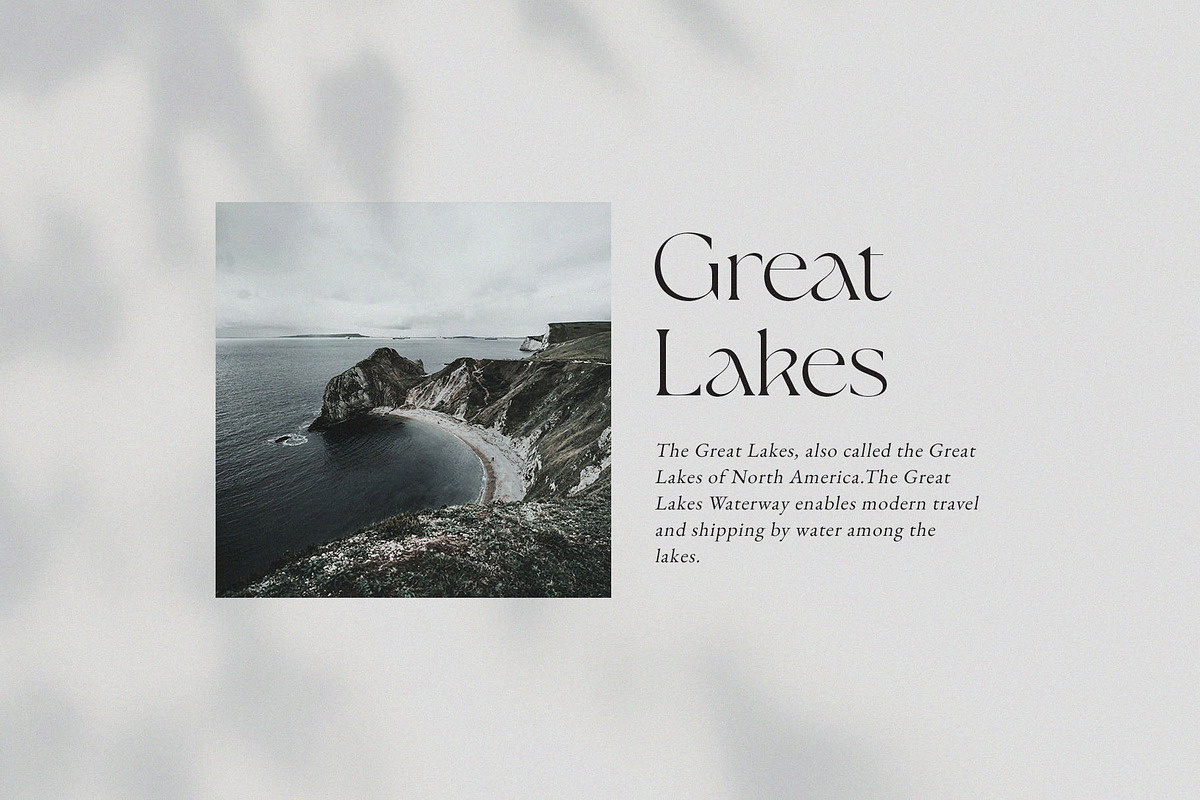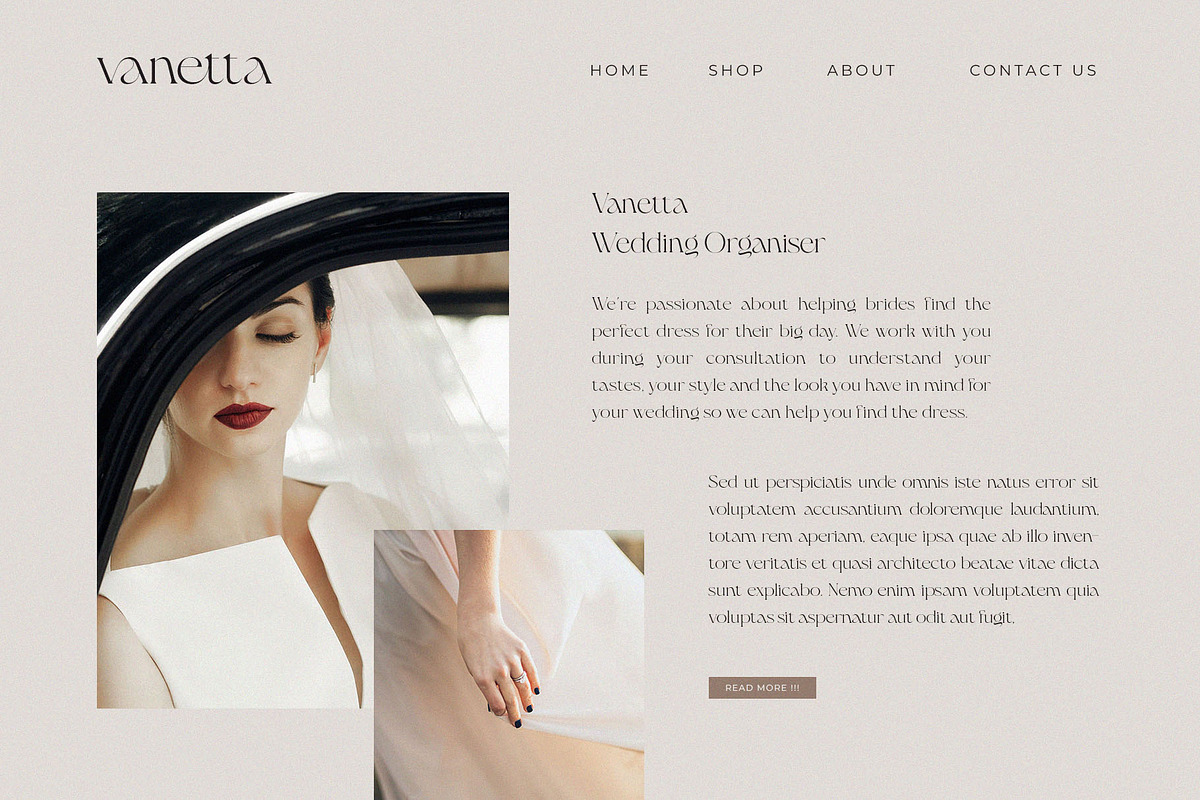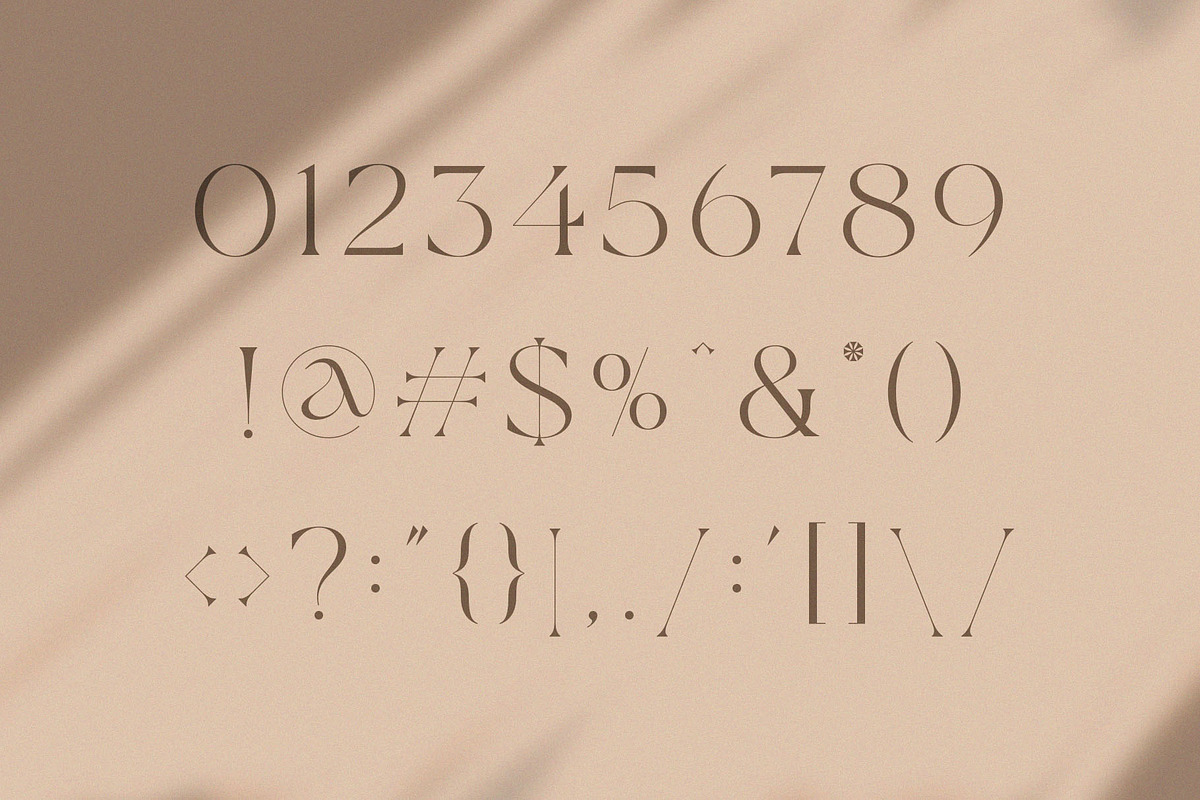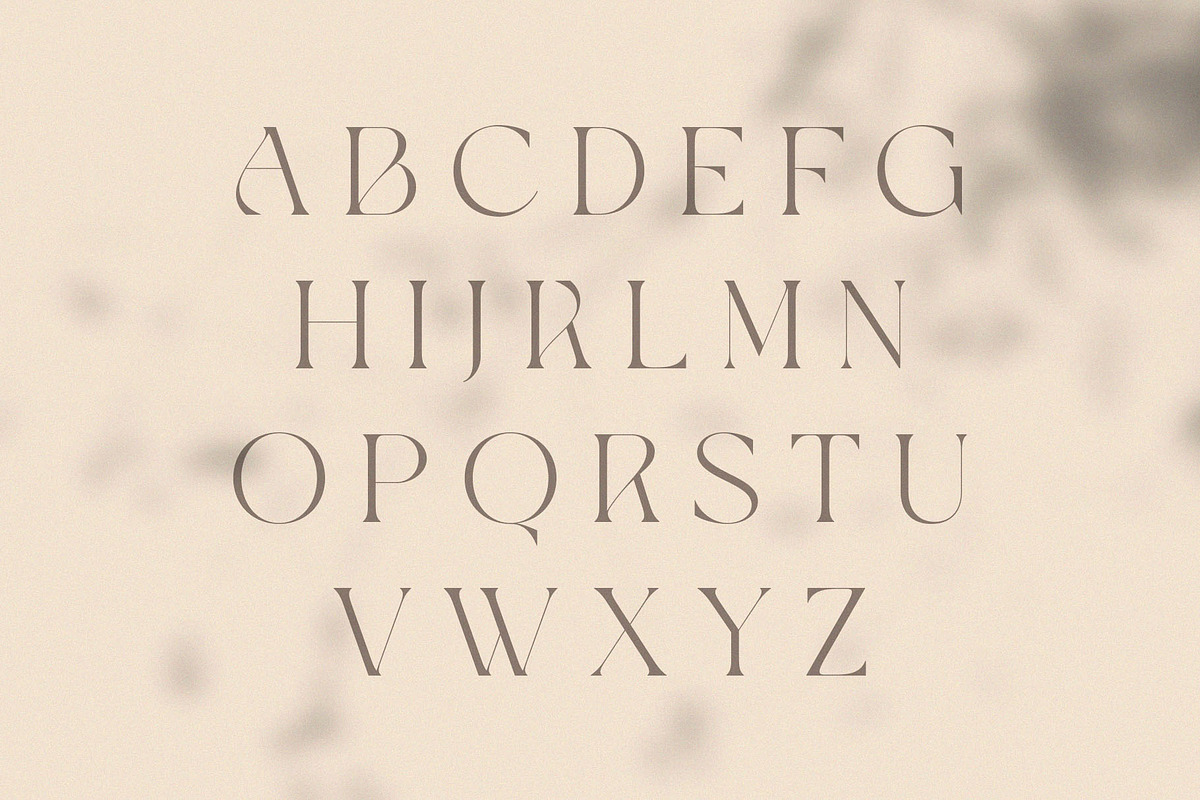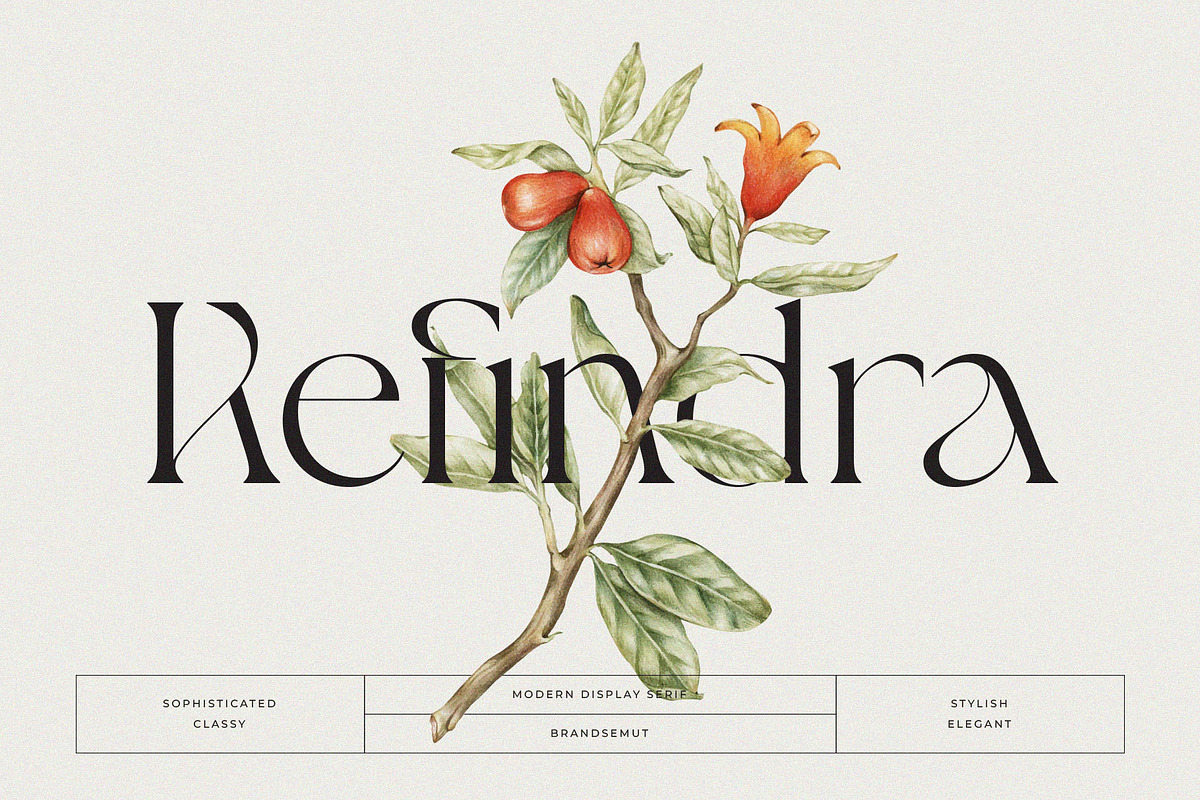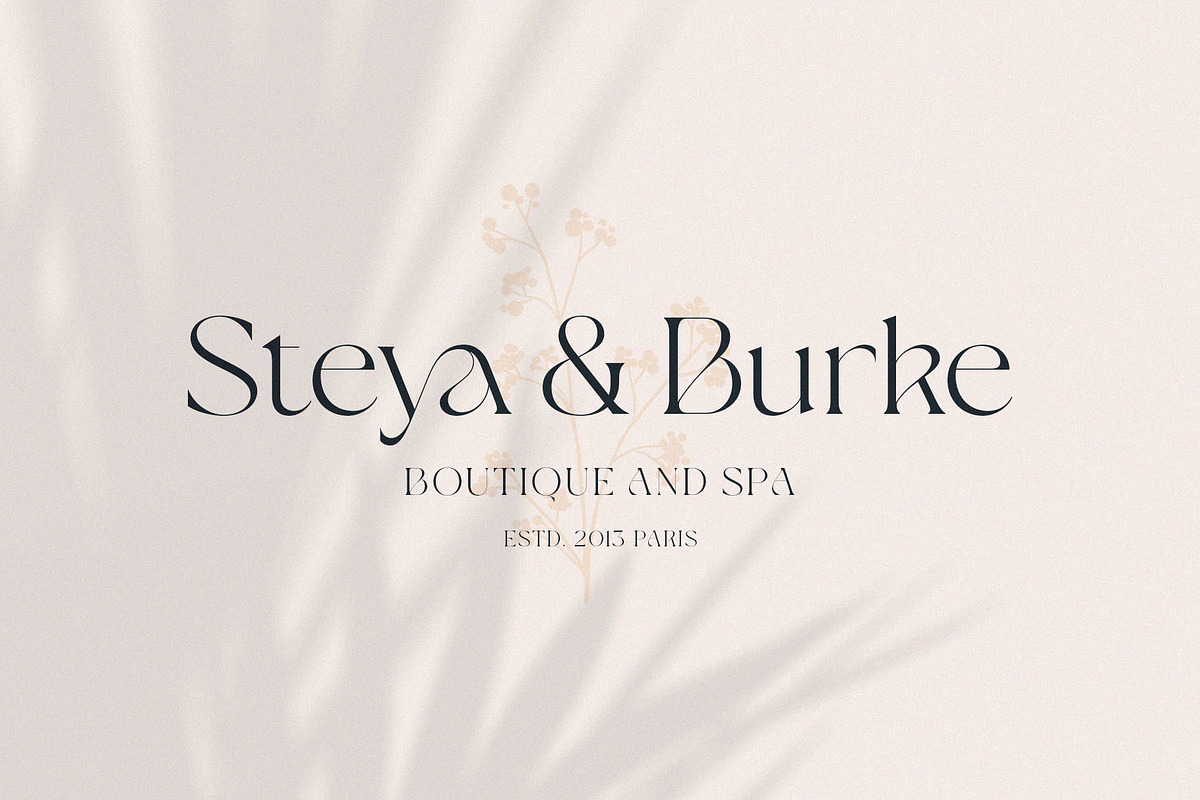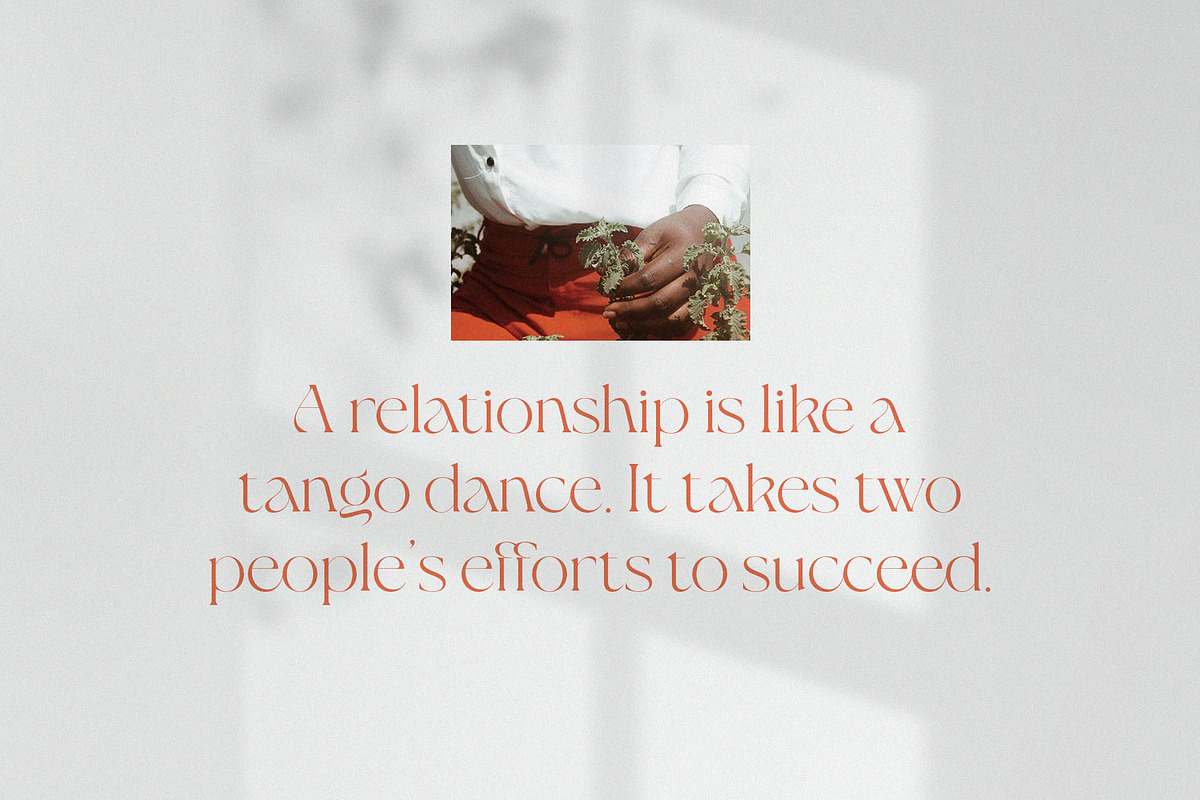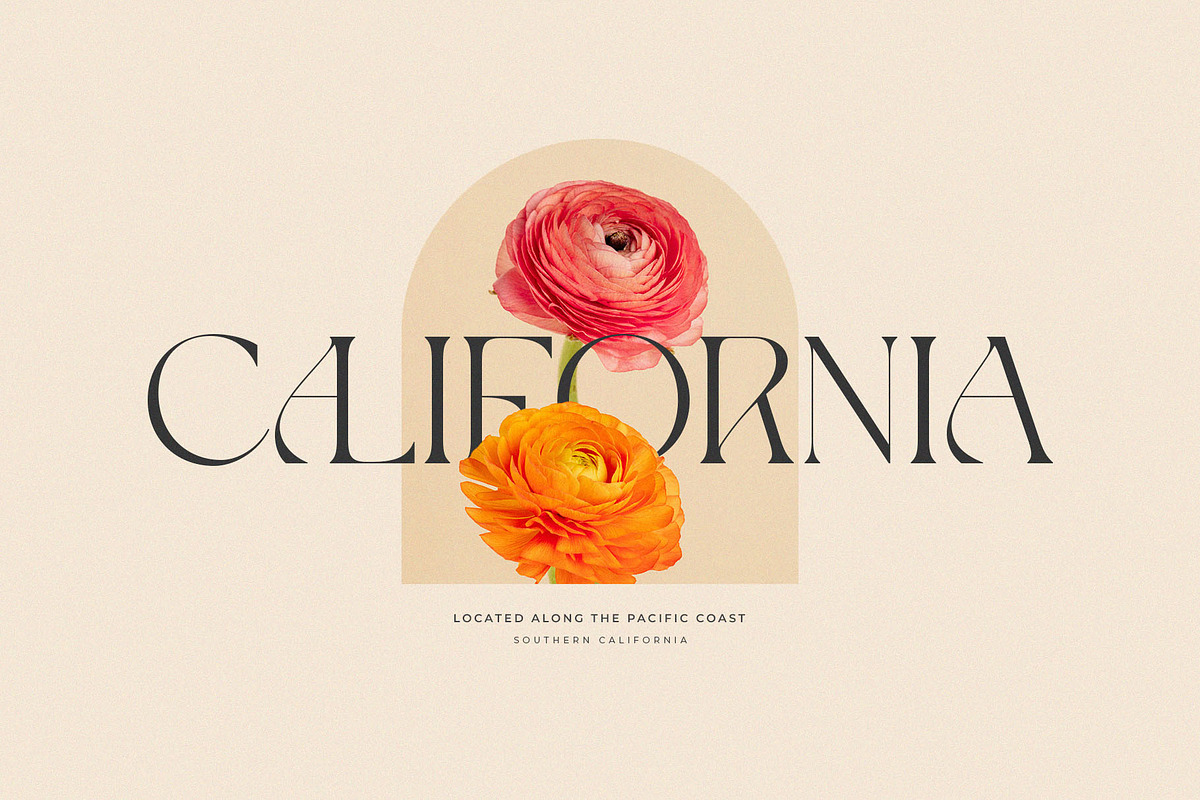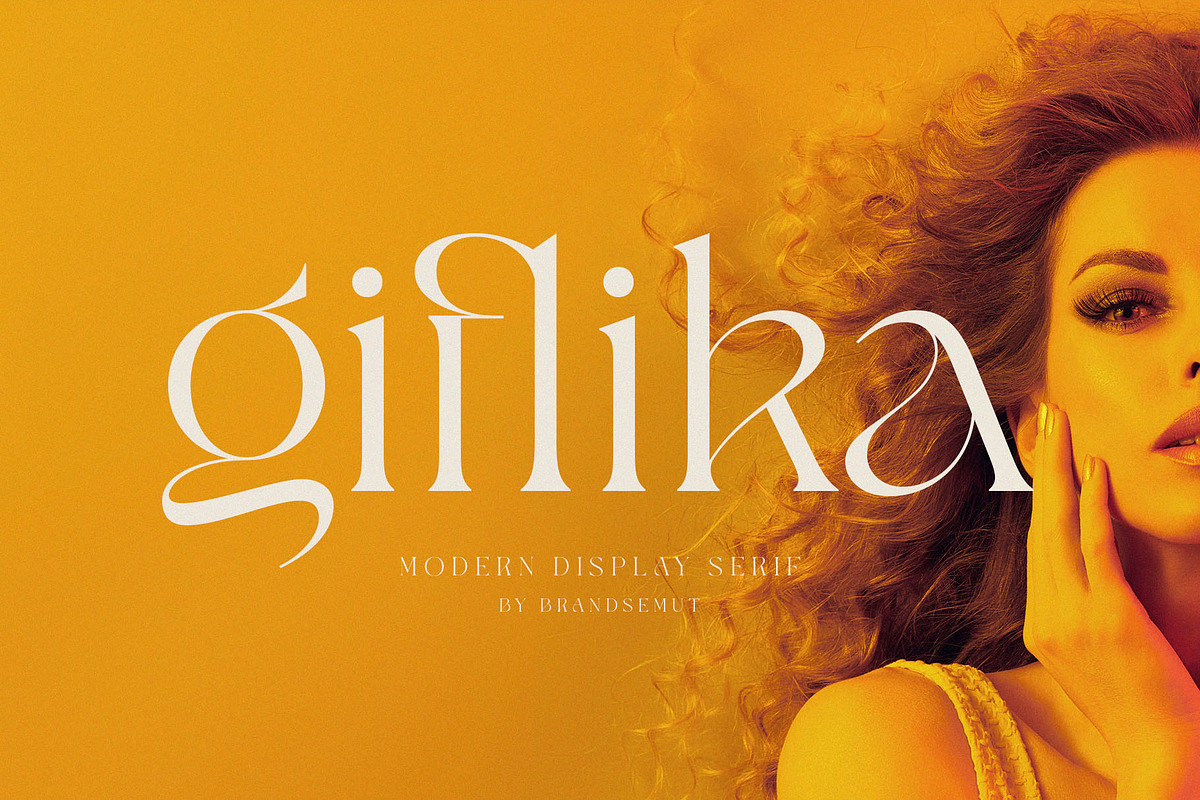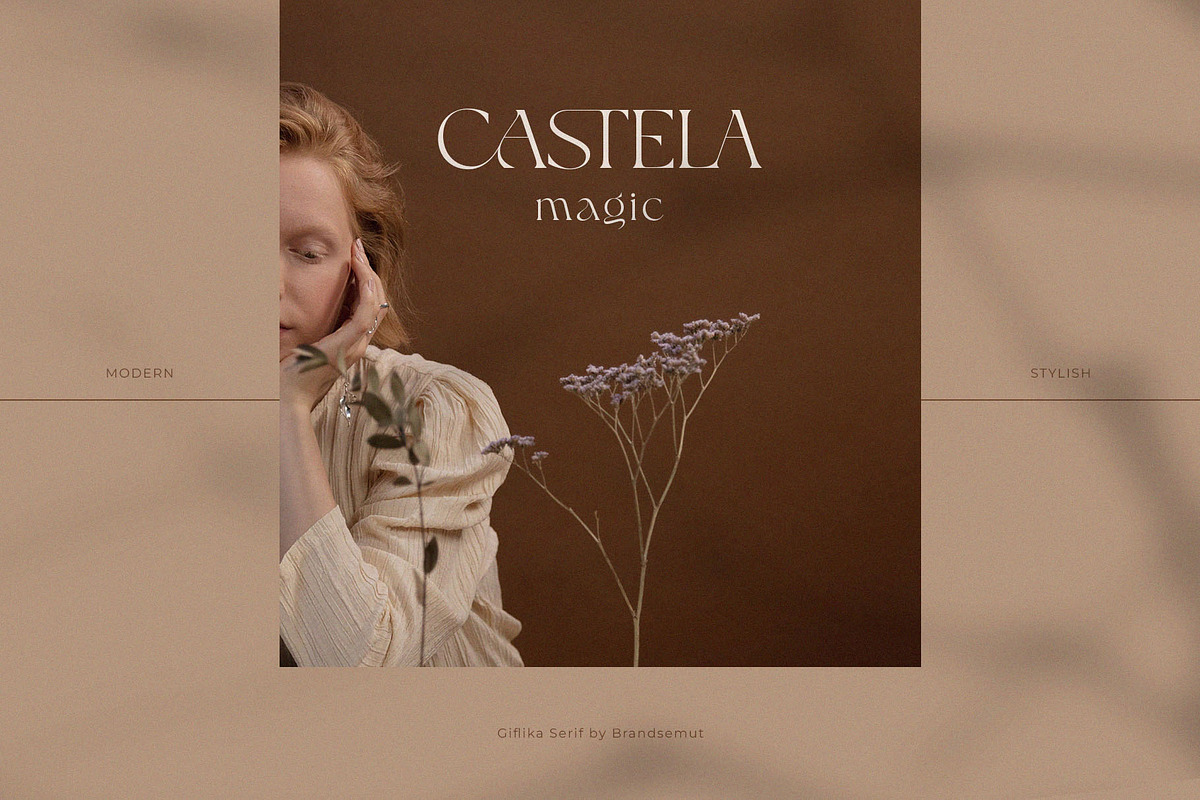
Giflika // Modern Display Serif
Introducing Giflika Modern Display Serif. Giflika is a stylish and modern display serif, best used as a display for headings, logos, branding, magazines, product packaging and invitations. Giflika equipped with Ligature and many Alternates and come with clean lines and smooth curves give any project an extra touch of class.